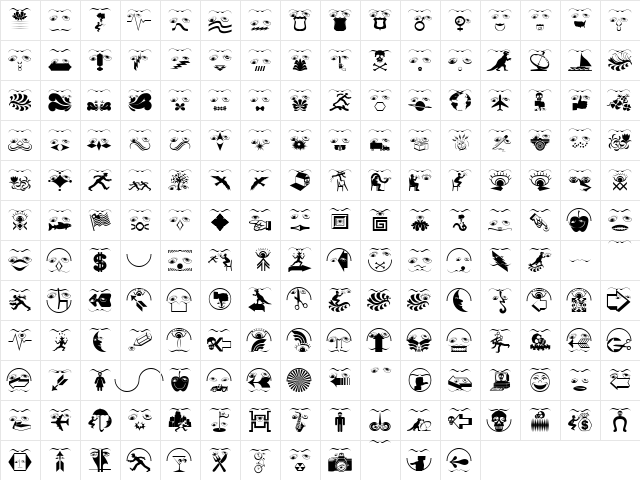
EverypictTells a Story Regular
Design Context for EverypictTells a Story Typeface
EverypictTells a Story is a composed and adaptable typeface that performs quietly and consistently across a wide range of design contexts.